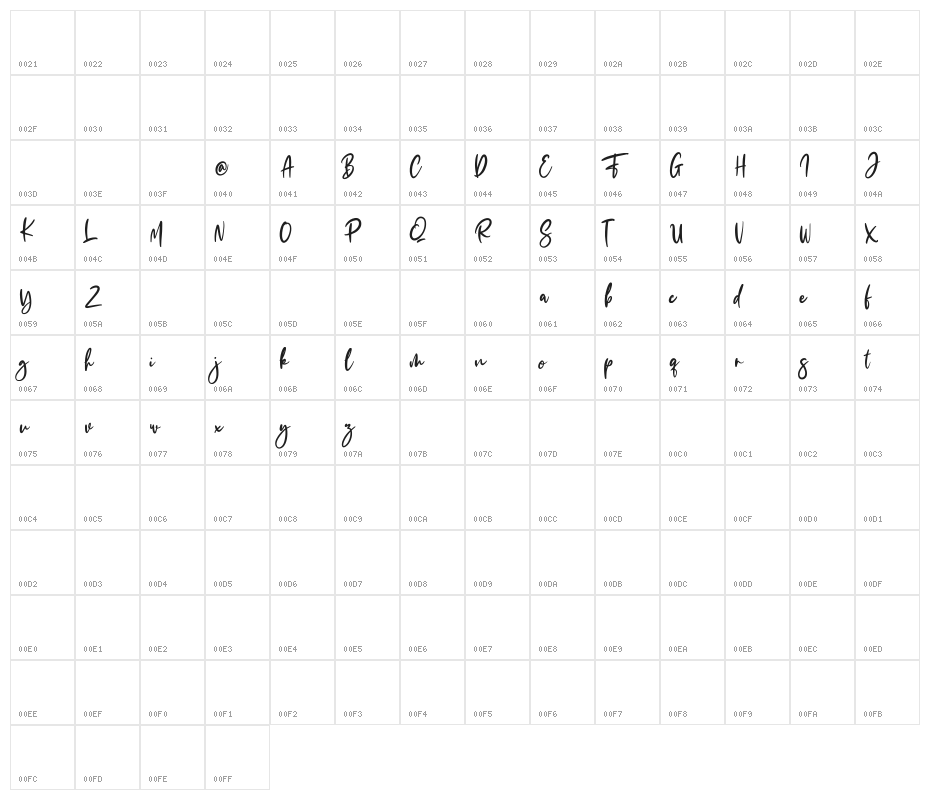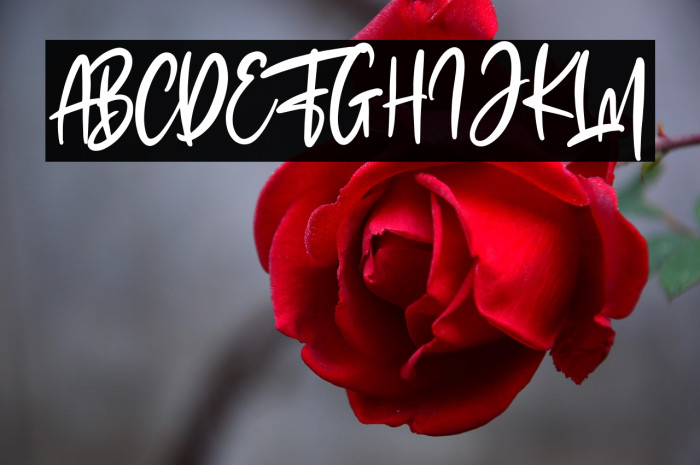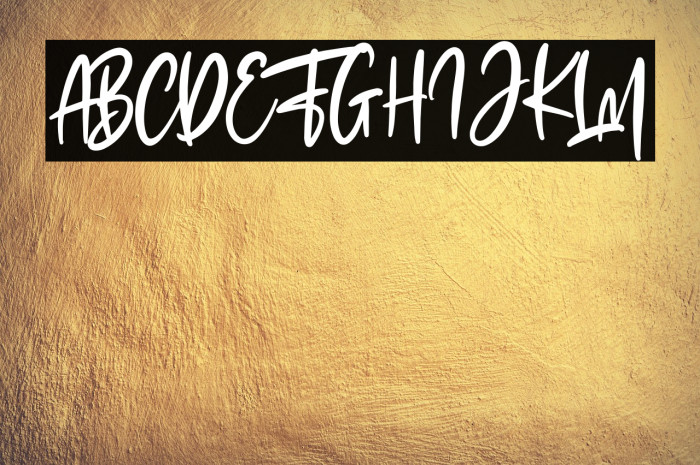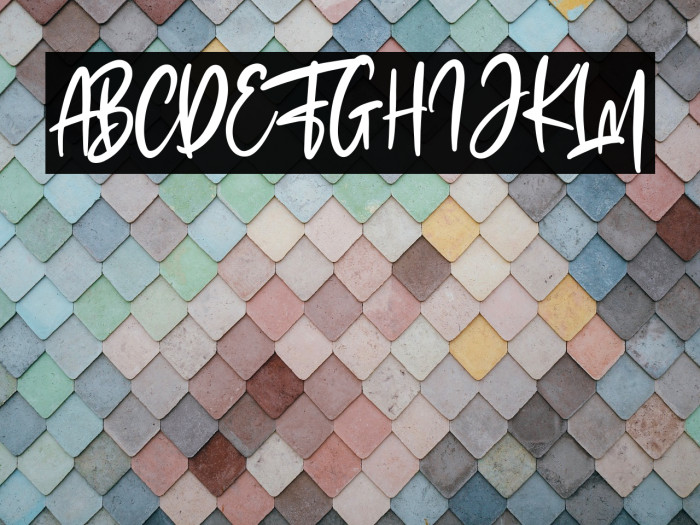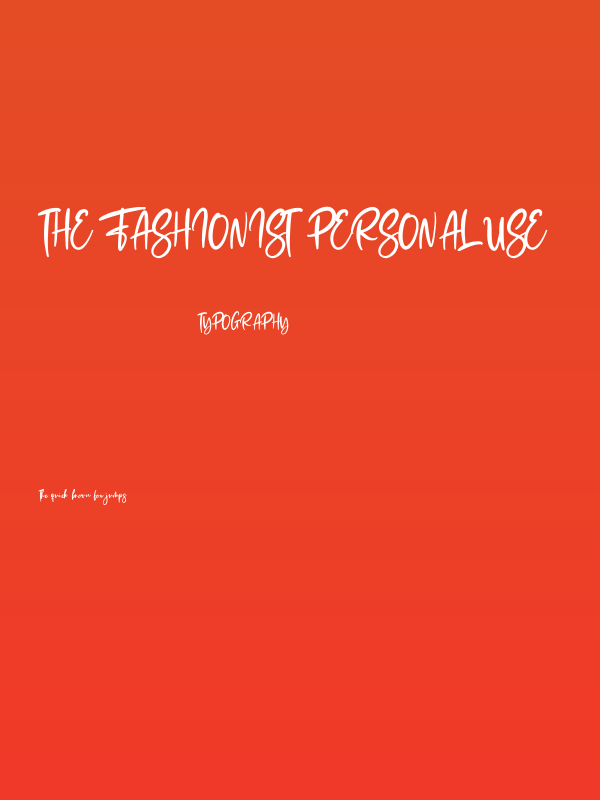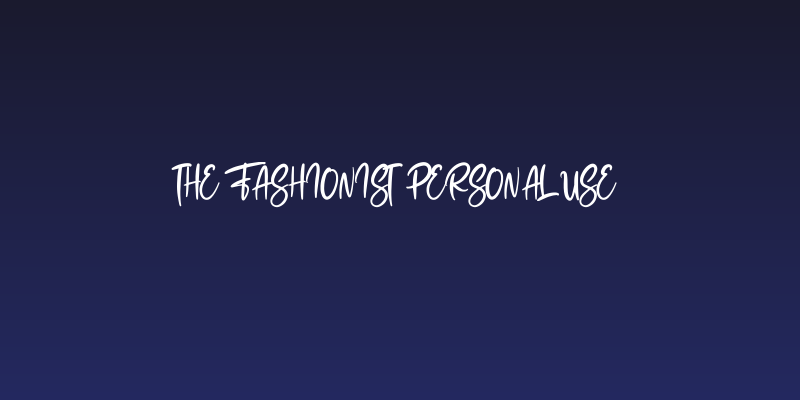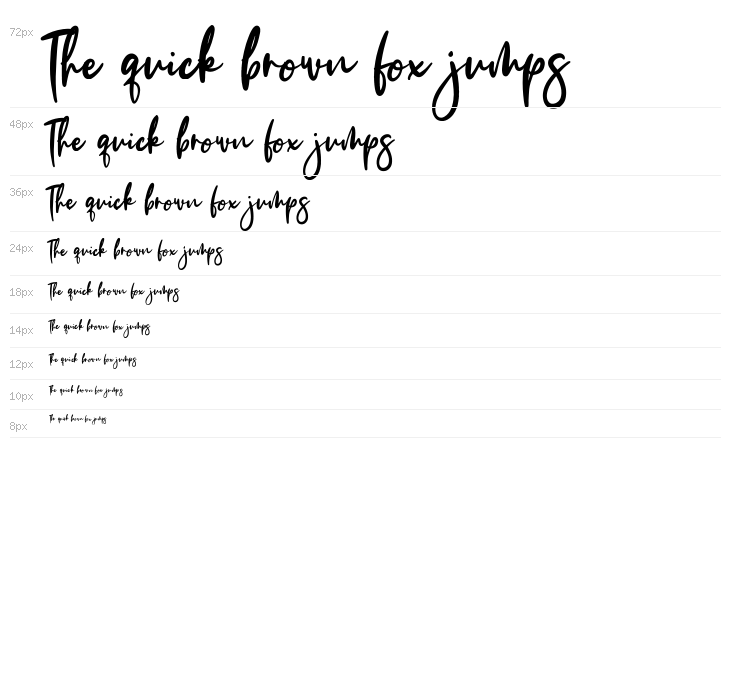
The Fashionist Personal Use Font
The Fashionist Personal Use Description
This font features a stylish, handwritten script with a modern flair. The letters are elegantly connected, creating a fluid and dynamic appearance. The uppercase letters are bold and prominent, while the lowercase letters maintain a consistent flow with a slightly more delicate touch. The strokes vary in thickness, adding a sense of movement and energy. This font is perfect for projects that require a personal and artistic touch, such as invitations, branding, and social media graphics. Its unique style makes it stand out, offering a blend of sophistication and creativity.
| Proposed Projects | Ideal for invitations, branding, social media graphics, and artistic projects. |